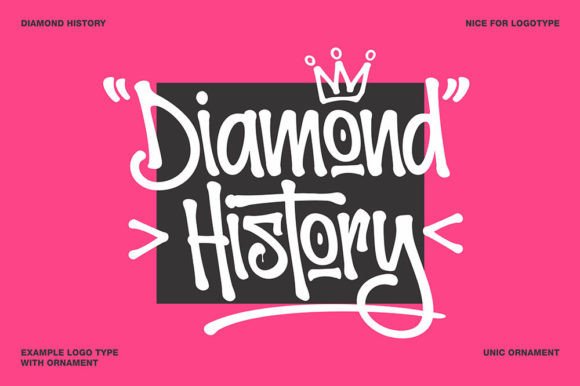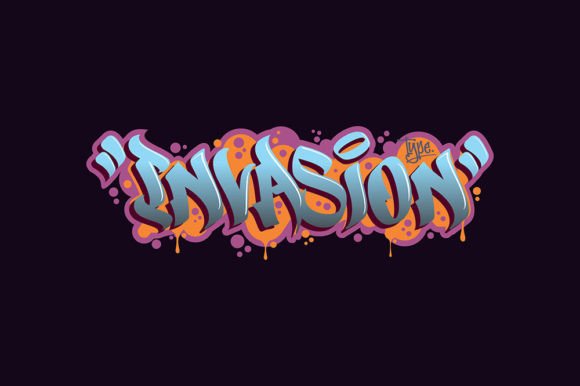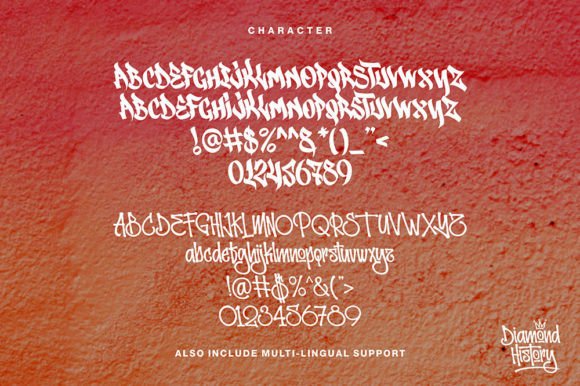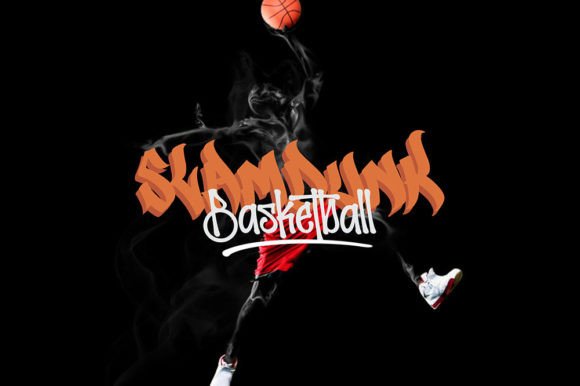
Diamond History Font
About the Diamond History Font
Make a bold statement with Diamond History Font, a powerful and memorable font. Diamond History is a cool, graffiti-style display font. Stylish and trendy, this font is suitable for a large variety of projects that need an urban-inspired accent.
Diamond History excels in headlines, posters, and branding applications where a bold, rebellious statement is desired. Its strong visual impact makes it ideal for streetwear apparel, music promotions, or edgy product packaging. However, its highly stylized forms are unsuitable for body text or user interfaces, where readability is paramount.
Consider pairing Diamond History with a clean sans-serif like Futura or a geometric sans-serif for a balanced contrast. For a more playful feel, a rounded sans-serif such as Gill Sans could work well. Avoid pairing it with overly decorative fonts which could clash with its distinct graffiti aesthetic.
The font’s core personality is undeniably bold and rebellious, conveying a sense of raw energy and urban cool. It’s a powerful choice for brands aiming for a street-smart, contemporary image.
Diamond History Font Usage Examples
Diamond History Font Example